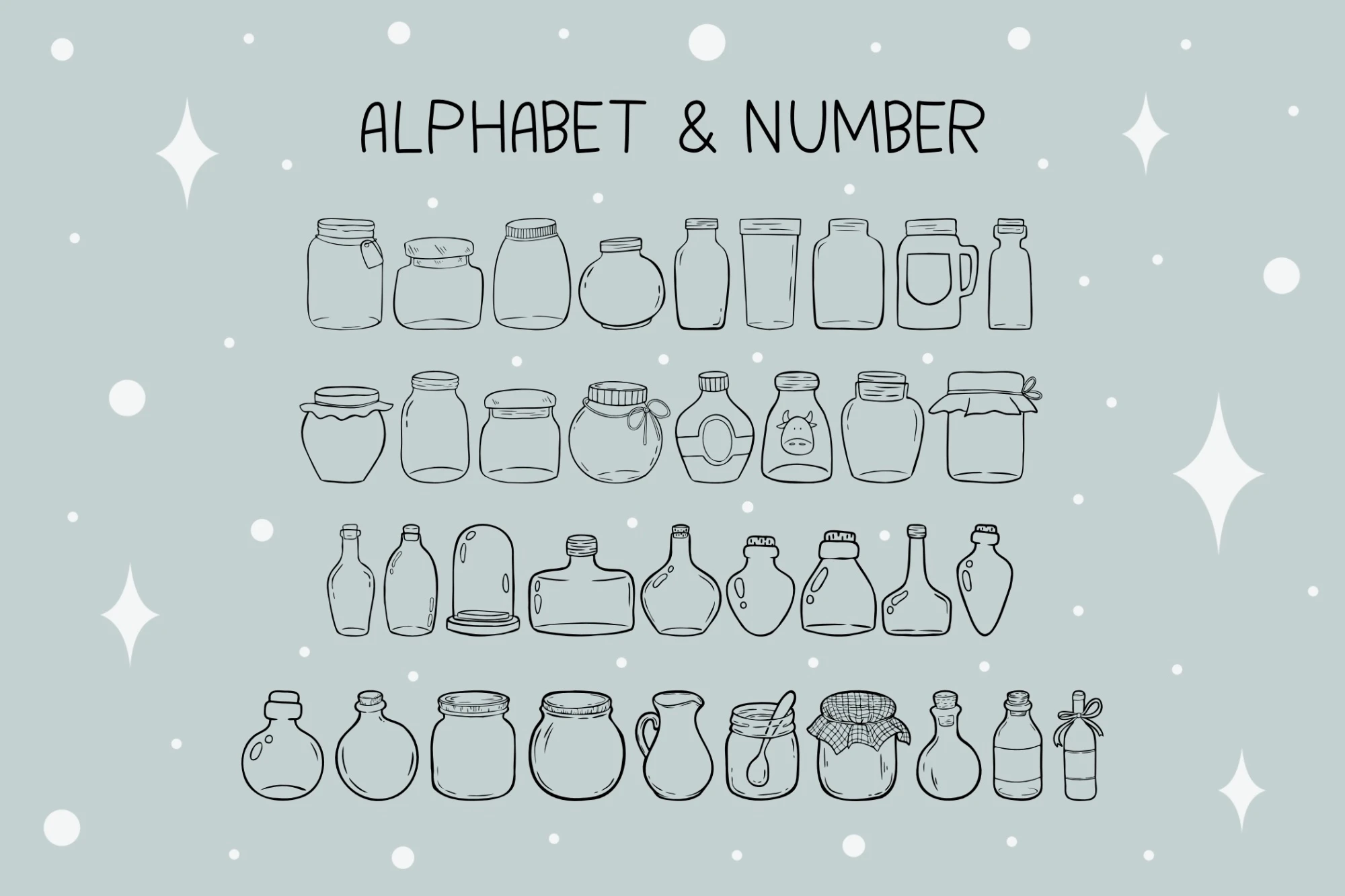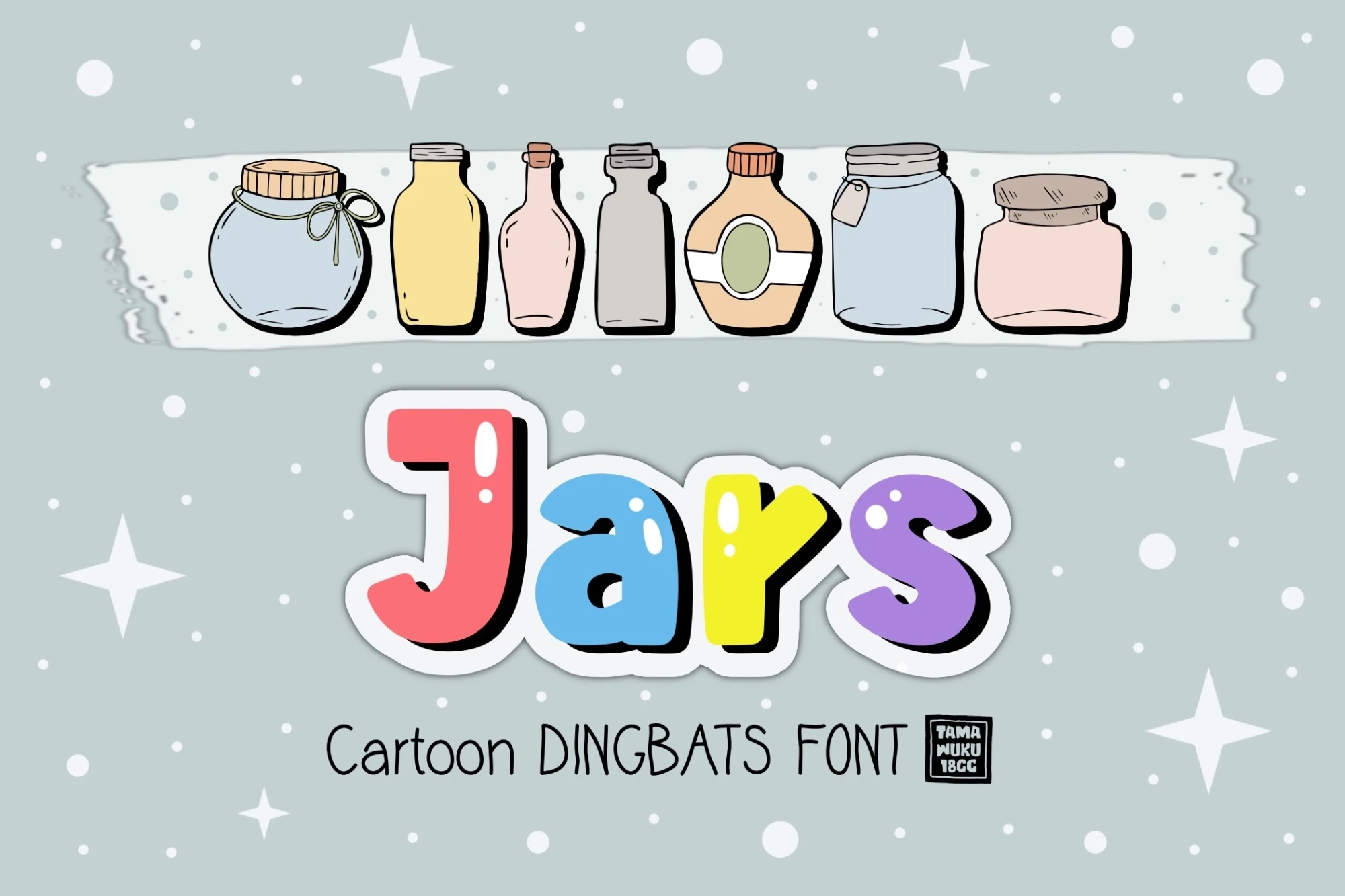
Jars is a dingbats font. This font is the perfect fit for all of your logos, wall art, signs, cards, art prints, t-shirts, coloring page, and much more!